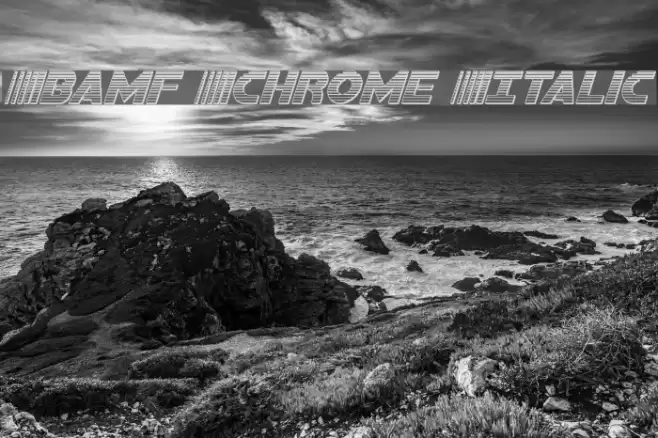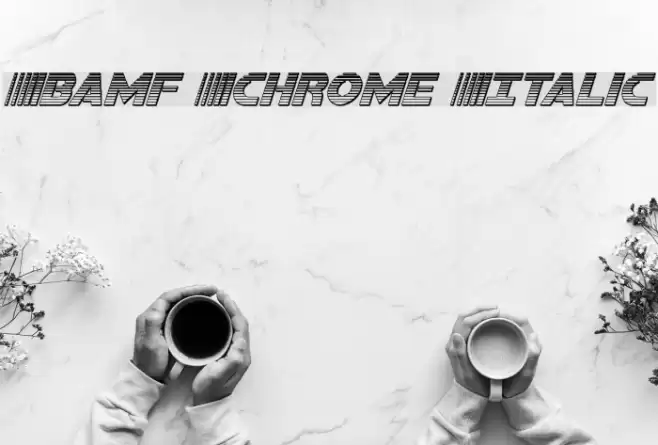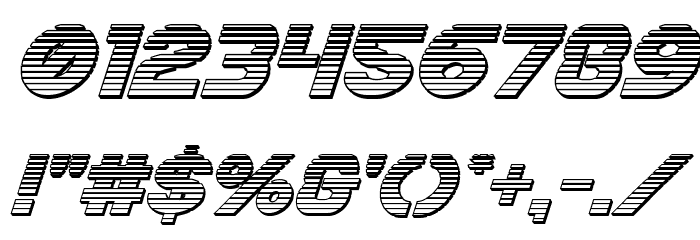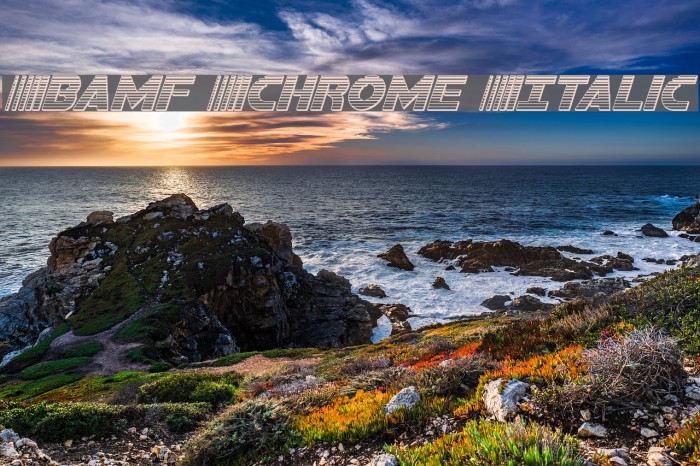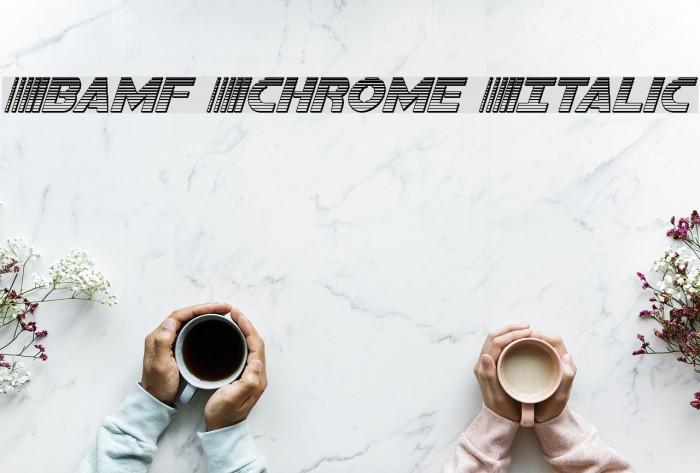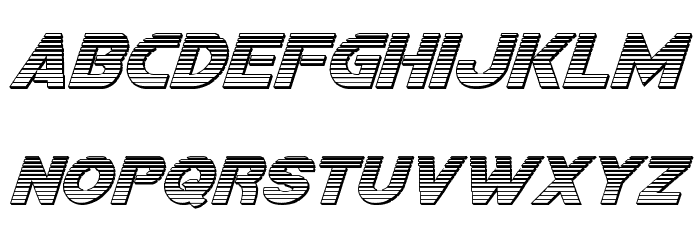
Bamf Chrome Italic Font
Bamf Chrome Italic Description
This font features a bold, italicized style with a distinctive striped pattern running through each character. The uppercase letters are designed with a strong, angular form, while the lowercase letters maintain a consistent, cohesive look. The numbers and special characters follow the same design principles, ensuring uniformity across all glyphs. The font's unique striped design gives it a dynamic, energetic feel, making it stand out in any application. Its boldness and italic slant add to its modern and eye-catching appearance, making it suitable for projects that require a strong visual impact.
A bold, italicized font with a unique striped pattern, perfect for dynamic and modern designs from Uncategorized fonts.
- Proposed Projects: Ideal for branding, posters, headlines, and any project that requires a bold, modern aesthetic.